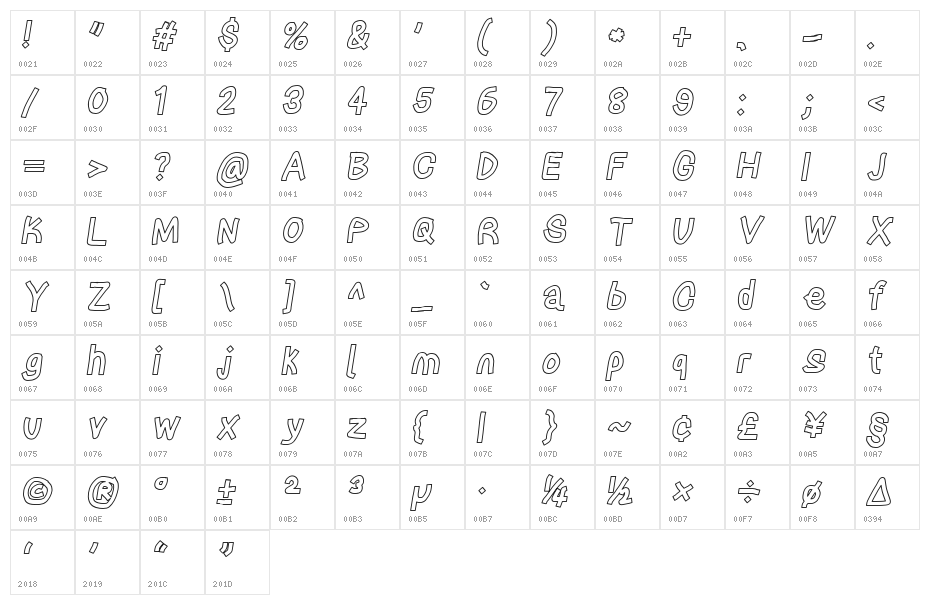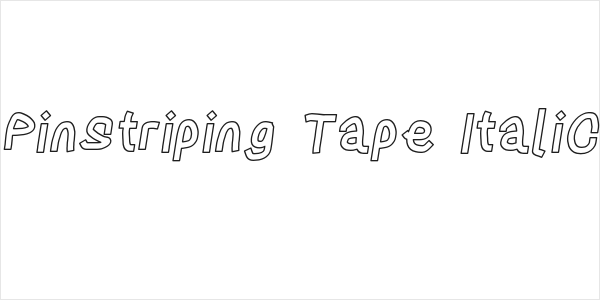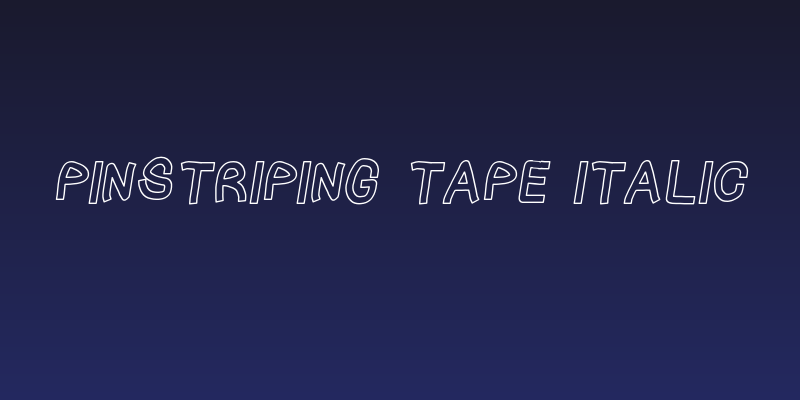
Pinstriping Tape Italic Font
Pinstriping Tape Italic Description
This font features a playful and dynamic style with a hand-drawn appearance. The letters are outlined, giving them a bold and striking look. Each character leans slightly to the right, adding a sense of motion and energy. The uppercase and lowercase letters maintain a consistent style, with rounded edges and a casual feel. The numerals and special characters follow the same design principles, ensuring uniformity across all glyphs. This font is ideal for projects that require a fun and informal touch, such as children's books, posters, and creative branding.
| Overall Style | Playful, Hand-drawn |
| Proposed Projects | Ideal for children's books, playful posters, and creative branding. |